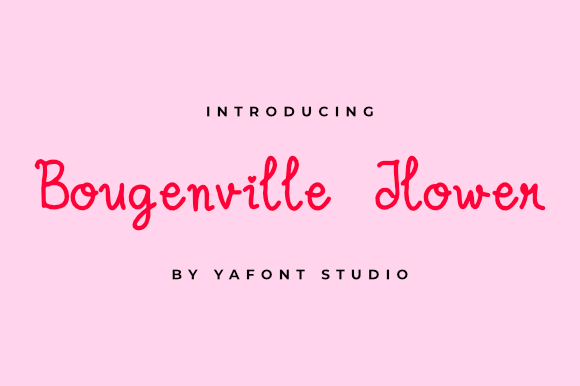
The Bougenville Flowers Font: A Timeless, Handwritten Delight
I’ll never forget the design project that led me to discover the Bougenville Flowers font. I was working on a whimsical craft project, aiming to create a beautiful, Instagram-worthy graphic with a personal touch. As I scrolled through font after font, nothing seemed quite right – until I stumbled upon Bougenville Flowers. Its simple, friendly, and incredibly distinct style captured my heart, and I knew I had found the perfect fit.
An Honest Review: The Good and the Quirky
• ✨ The timeless, handwritten feel that adds a personal touch to any design
• ✅ Incredibly versatile and easy to read, even in smaller sizes
• 💕 A distinct style that stands out without being too over-the-top
• 🎨 Perfect for a wide range of creative projects, from crafts to professional designs
• 🤔 Some users might find the font a tad too casual for very formal projects
• ⚠️ Limited availability of stylistic alternates, which might restrict design variations
Exploring Alternatives: Similar Fonts for Different Moods
If you love Bougenville Flowers, you might also enjoy these similar fonts, each with its own personality:
• Pacifico: A beautiful, modern script with a relaxed vibe. Use it for trendy designs and social media graphics.
• Great Vibes: A fun, adventurous script perfect for creative projects and events. Its bouncy letters add a playful touch.
• Lobster: A classic, elegant script ideal for formal and stylish designs. Its sophisticated feel works well for luxury brands and high-end events.
• Carolyna Pro: A charming, elegant script with a vintage feel. Use it for designs that require a touch of sophistication and whimsy.
The Story Behind Bougenville Flowers
Bougenville Flowers was designed with the intention of capturing the simple, genuine beauty of handwritten words. The creator aimed to produce a font that feels both approachable and timeless, perfect for a wide range of creative projects. The name itself evokes images of delicate flowers and carefree, artistic expression.
Q: Is Bougenville Flowers suitable for professional designs?
A: Absolutely! Its clean and readable style makes it perfect for a variety of professional projects, from branding to presentations.
Q: Does Bougenville Flowers support OpenType features?
A: Yes, Bougenville Flowers supports OpenType features, including ligatures and stylistic alternates, which can enhance your designs.